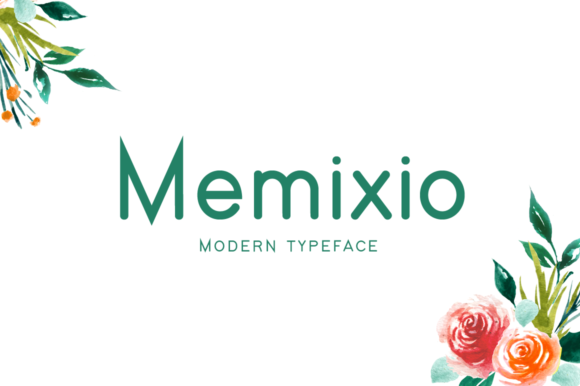
Memixio Font
Introducing Memixio, the display font that captivates and commands attention. Its sleek, modern lines dance across your designs, adding an irresistible touch of sophistication to every creation.
Crafted by the ingenious minds at Shattered Notion, Memixio is a masterpiece of versatility, seamlessly adapting to a myriad of design realms. Its elegant curves and sharp angles effortlessly elevate stationery, making your invitations and announcements stand out with unparalleled grace.
Unleash your creativity with Memixio, the font that transforms logos into unforgettable emblems of distinction. Its bold presence commands attention, ensuring your brand leaves a lasting impression.
Memixio adorns t-shirts and apparel, imbuing them with a unique flair that sets you apart from the crowd. Let your imagination soar as you create designs that ignite conversations and inspire admiration.
Elevate your print designs with Memixio's captivating touch. Its crisp lines and balanced proportions lend an air of professionalism, making your reports, brochures, and flyers irresistible to the eye.
Memixio effortlessly enhances website headers, drawing visitors into your digital domain with its alluring charm. Its adaptability extends to photo frames, framing your cherished memories in a style that echoes timeless elegance.
Flyers and posters adorned with Memixio possess an undeniable magnetism, captivating audiences with their bold and inviting presence. Music covers and sliders come alive with Memixio's rhythmic flow, perfectly capturing the essence of your musical creations.
Immerse yourself in the endless possibilities of Memixio, the display font that empowers you to create designs that resonate with emotion and leave an unforgettable mark.